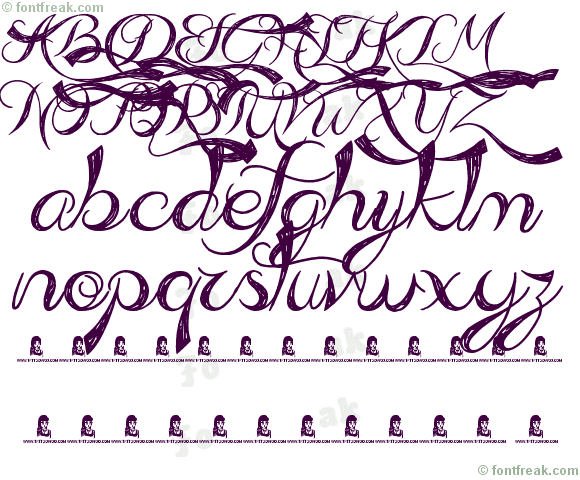
Admiration Pains
About Admiration Pains
Admiration Pains is a captivating script font designed by Jonathan S. Harris, available for free download. This font falls into the decorative category, showcasing a unique blend of elegance and artistic flair that makes it stand out in various design contexts. Its visual characteristics include a combination of flowing, cursive strokes with a hand-drawn quality, which imbues it with charm and personality. The stroke weight varies throughout the letters, creating a dynamic and engaging appearance. The spacing between characters is thoughtfully crafted, ensuring readability while maintaining an organic feel.
This font is incredibly versatile and can enhance a wide range of applications. It is particularly well-suited for wedding invitations, where its graceful curves can add a romantic touch. Additionally, it shines on movie posters, providing a dramatic flair that captures attention. Restaurant menus can also benefit from its aesthetic appeal, creating a welcoming atmosphere that entices diners. Furthermore, content creators looking to elevate their branding will find Admiration Pains an excellent choice for logos and social media graphics, as it reflects creativity and individuality.
The target audience for this font includes graphic designers seeking a distinctive script to enhance their projects, small business owners aiming to create memorable branding, and content creators looking to add a personal touch to their work. Admiration Pains font free download opens up a world of creative possibilities for anyone looking to make a statement in their designs.
What sets Admiration Pains apart is its ability to convey emotion through typography. The whimsical yet refined nature of the font captures attention while remaining approachable, making it a perfect choice for projects that require a touch of elegance without sacrificing personality. Whether used in print or digital media, this font is sure to leave a lasting impression.